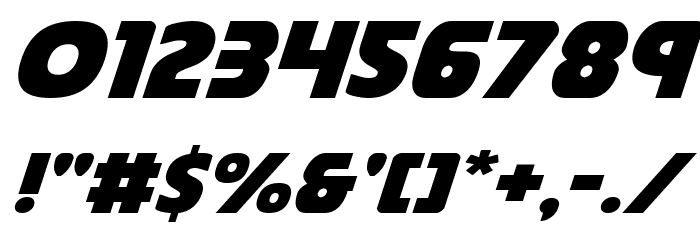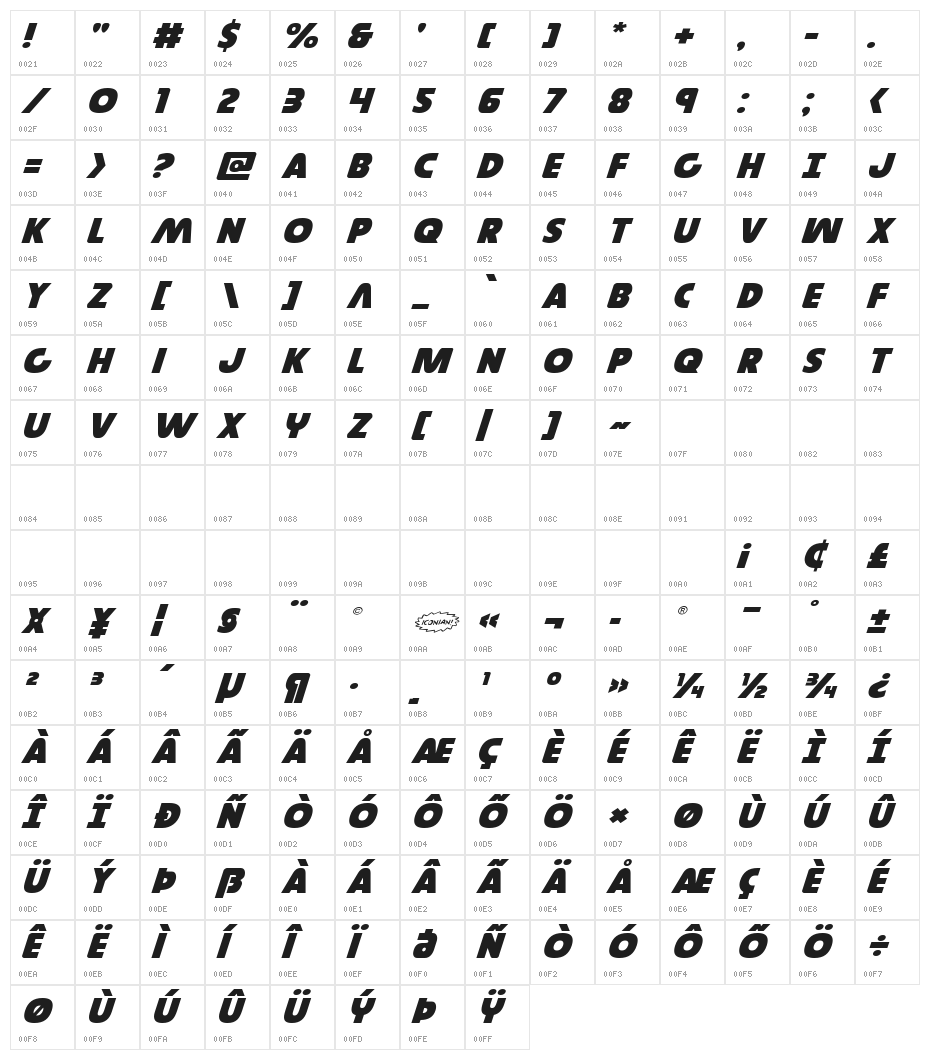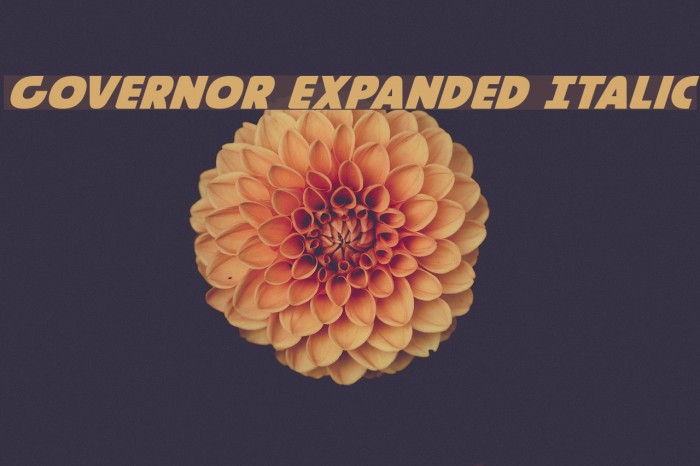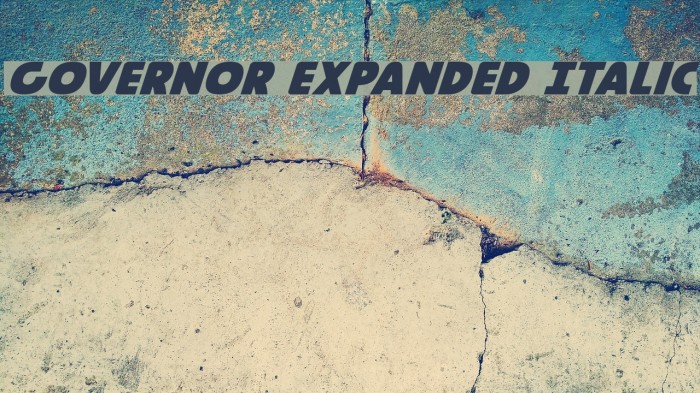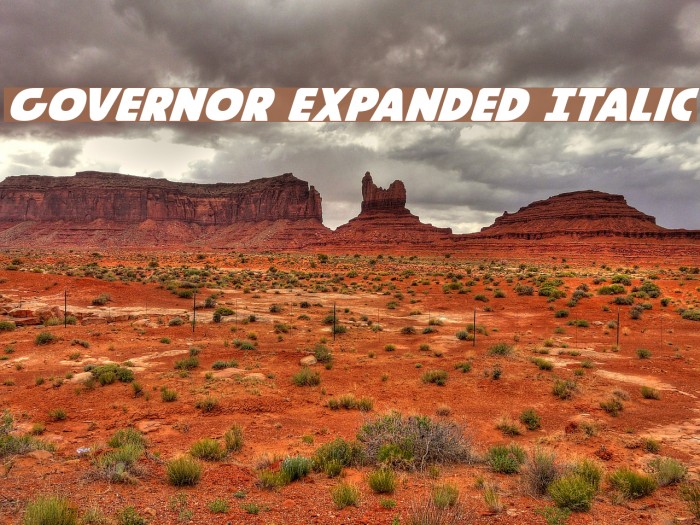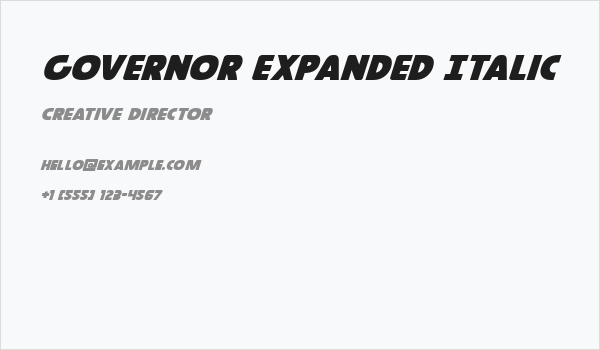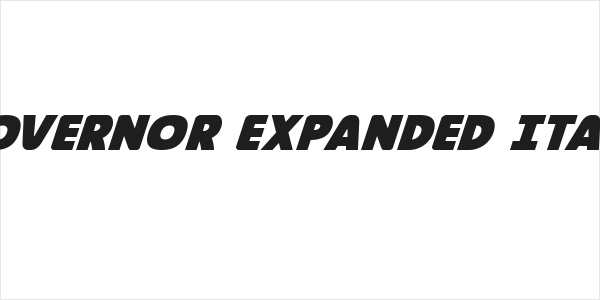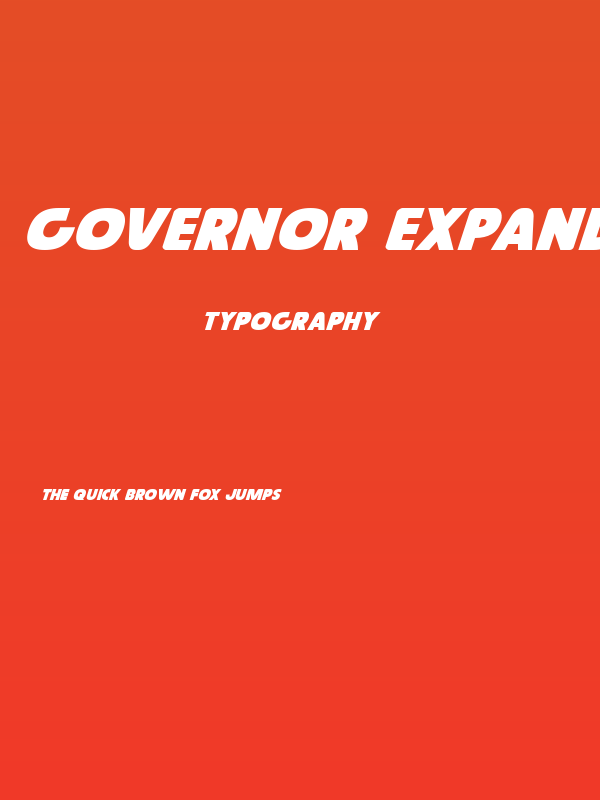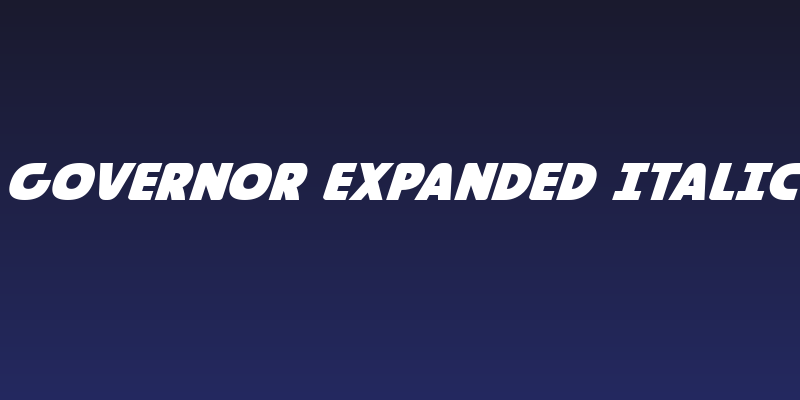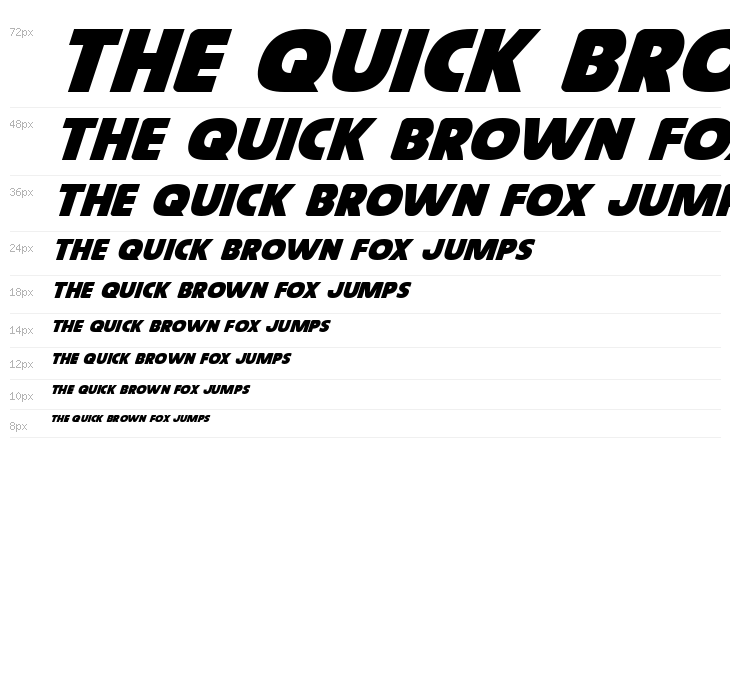
Governor Expanded Italic Font
Governor Expanded Italic Description
This font features a bold and dynamic style with an italic slant, giving it a sense of movement and energy. The characters are expanded, providing a wide and impactful appearance. The strokes are thick and consistent, contributing to a strong visual presence. The design is modern and sleek, making it suitable for attention-grabbing headlines and titles. The uppercase and lowercase letters maintain a uniform style, ensuring readability and cohesion across different text sizes. The numerals and special characters are designed to match the boldness and style of the alphabet, ensuring a consistent look throughout.
| Proposed Projects | Ideal for headlines, posters, branding, and any project requiring a strong and modern visual impact. |